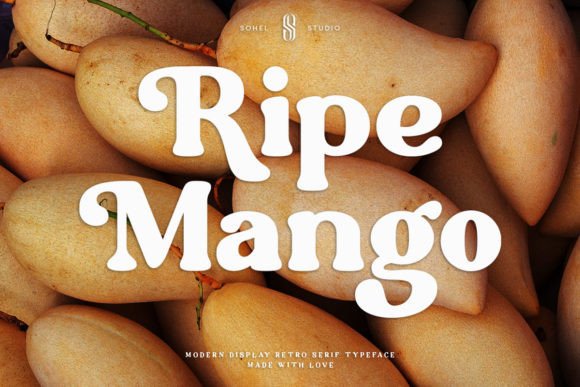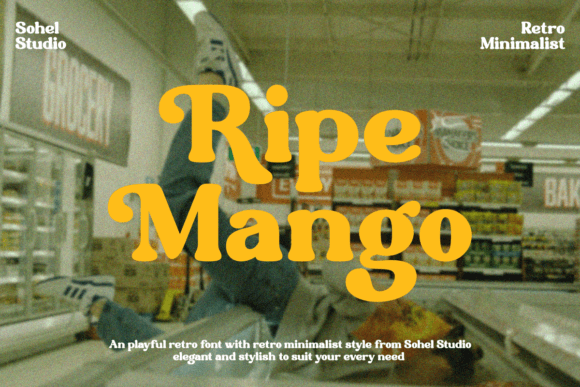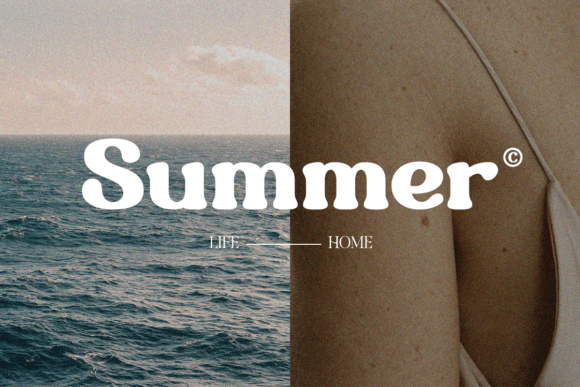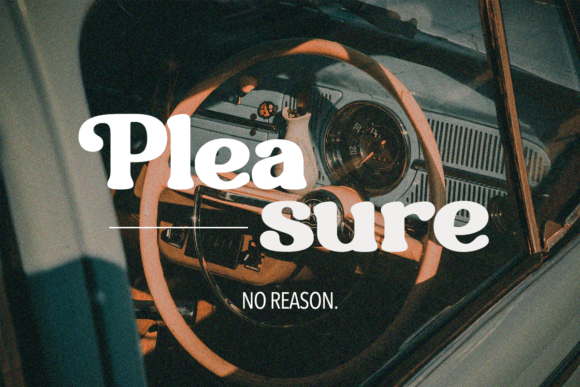
Ripe Mango Font: A Groovy Retro Display Font for Headlines!
About the Ripe Mango Font
Step up your design game with Ripe Mango Font, a font that exudes confidence and style. Ripe Mango is a retro display serif font that exudes a classic charm and bold character.
With its design inspired by retro styles, this font brings an elegant touch and evokes a sense of the past. Each letter is meticulously crafted with careful attention to detail and proportion, resulting in a visually appealing and unique appearance.
Ripe Mango excels as a display typeface for headlines, logos, and short, impactful statements in branding materials or posters. Its retro styling lends itself well to projects evoking nostalgia or vintage aesthetics. Avoid using it for body text or long paragraphs; its bold strokes and relatively large x-height make it unsuitable for extended reading.
The font’s personality is confident and sophisticated yet approachable. It projects a sense of playful elegance, making it ideal for brands targeting a discerning audience with a taste for classic design.
Pairing Ripe Mango with a clean sans-serif like Helvetica Neue for body copy creates a strong contrast and visual balance. For a more vintage-inspired feel, consider pairing it with a complementary serif like Garamond or a script font like Great Vibes for stylistic accents.
Ripe Mango Font Usage Examples
Ripe Mango Font Example